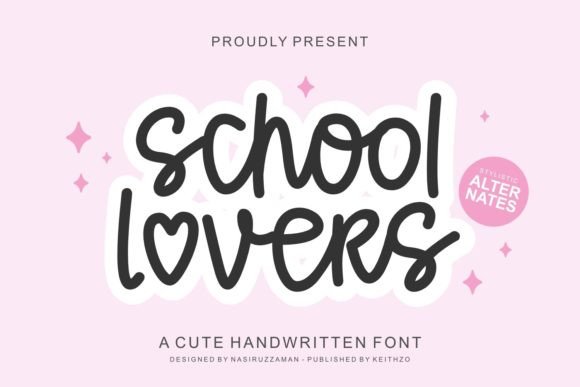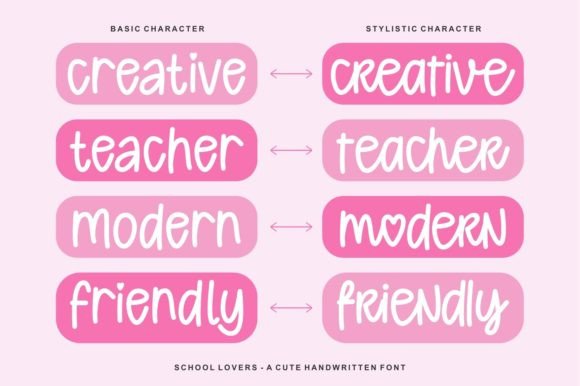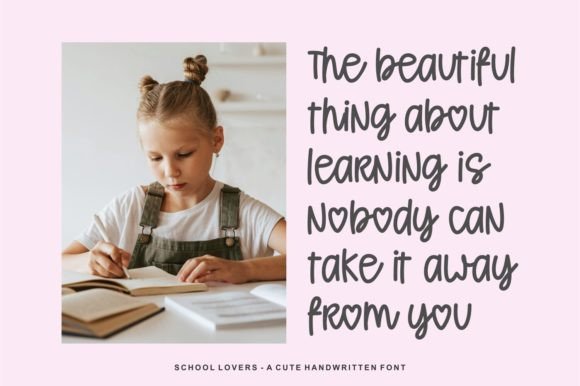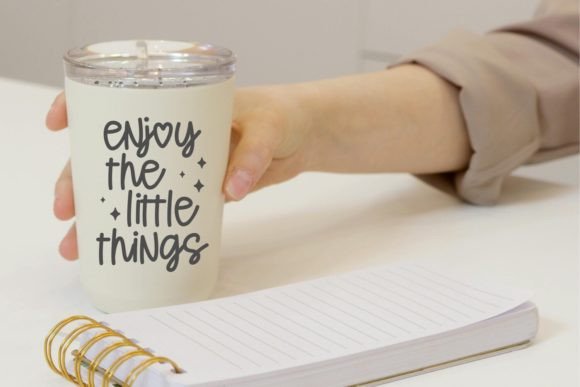
School Lovers Font: A Cute Handwritten Font for Cricut & Crafting
About the School Lovers Font
Presenting School Lovers Font, a unique and stylish typeface that will make your work stand out. Experience the charm of motion in typography with the School Lovers Font. Undulating irregularly, it crafts an authentic, unique impression that captivates instantly. As the perfect fit for those whose design palates teeter on the edge of adorable and cute, this font adds a delightful twist to your creations. Dabble into different arenas such as branding, handicrafts and business logos with this dynamic font. It’s also an exceptional choice for social media, breathing new life into your online presence. The School Lovers Font is an exploration of playfulness and versatility, enhancing your designs in the most alluring way.
School Lovers Font Usage Examples
School Lovers Font Example